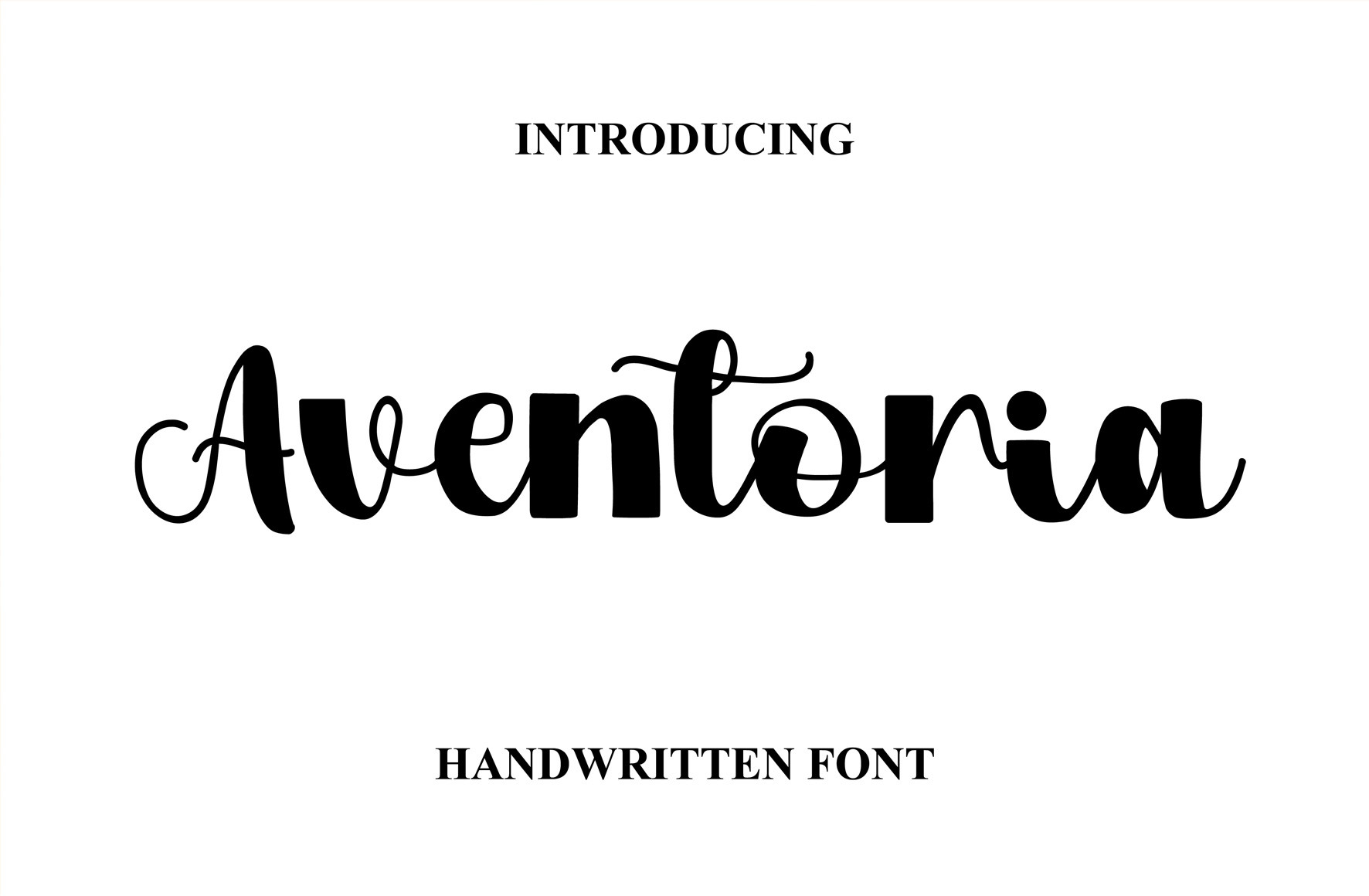
Aventoria - Handwritten Font
Aventoria is a beautiful handwritten cursive font that effortlessly blends sophistication with a personal, organic touch. This gentle font will look gorgeous on a variety of design ideas. It will add a joyful and romantic touch to each of your projects!
Perfectly fit for branding, logo, wedding things, greeting cards, fashion, lookbook, marketing promotion, and any time you want your design to look fancy an elegant but still casual.